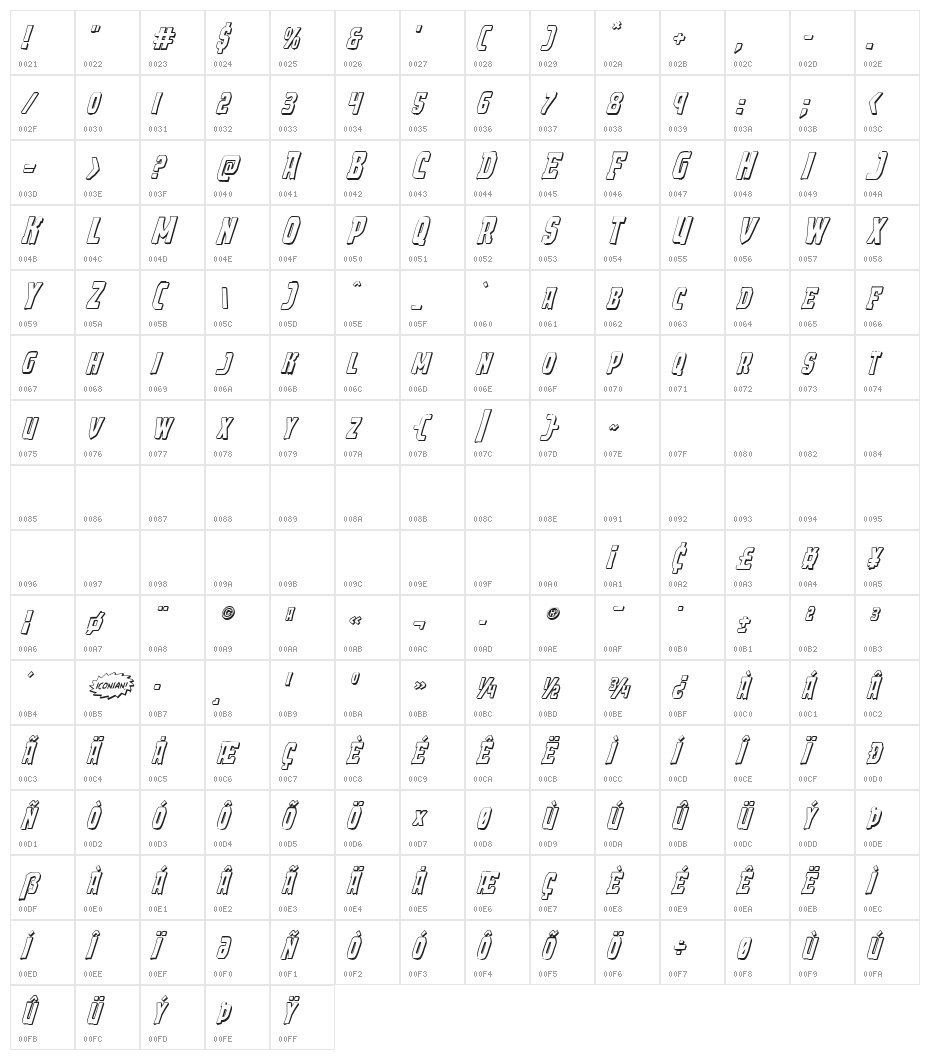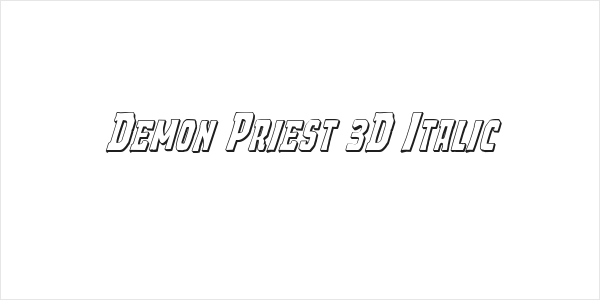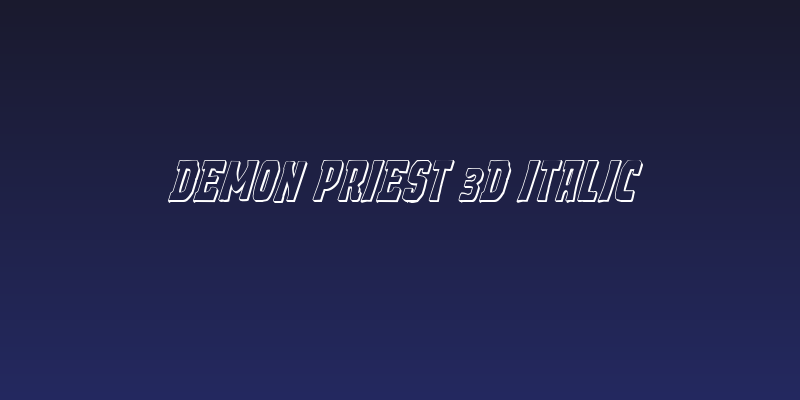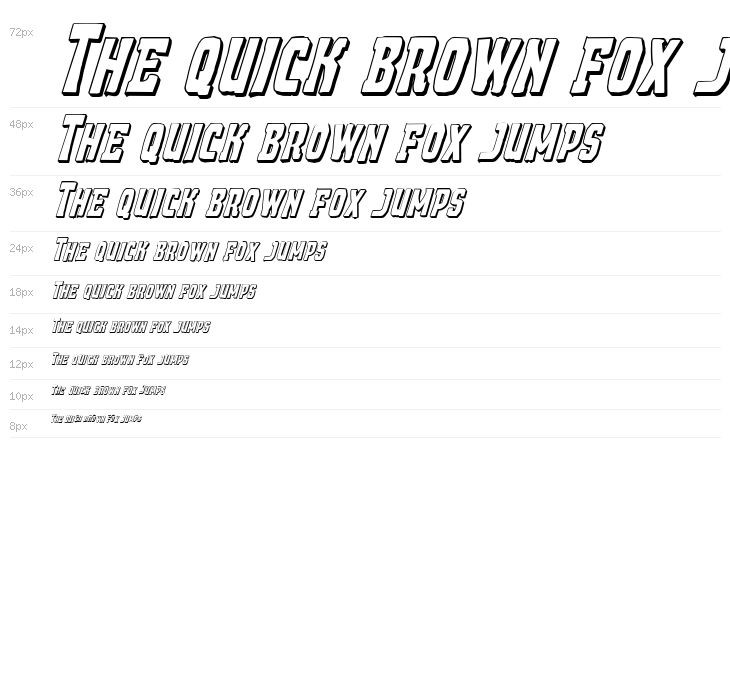
Demon Priest 3D Italic Font
Demon Priest 3D Italic Description
This font features a bold, 3D italic style that gives a dynamic and energetic appearance. The letters are outlined with a shadow effect, enhancing the three-dimensional look. The uppercase and lowercase letters maintain a consistent style, with sharp angles and a slightly condensed form. The numbers and special characters follow the same design principles, ensuring uniformity across all glyphs. This font is ideal for projects that require a strong visual impact, such as posters, logos, and headlines. Its unique style makes it stand out, capturing attention with its bold and italicized form.
| Proposed Projects | Ideal for posters, logos, headlines, and any design needing a strong visual impact. |